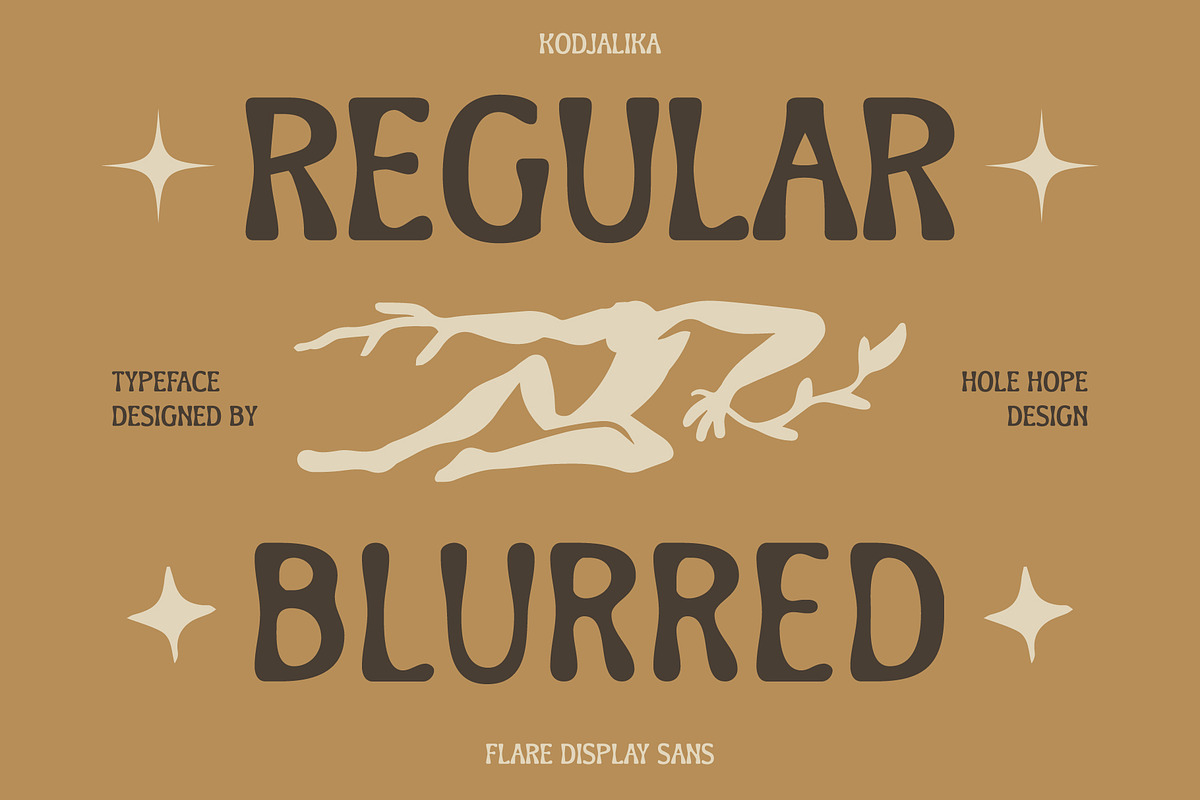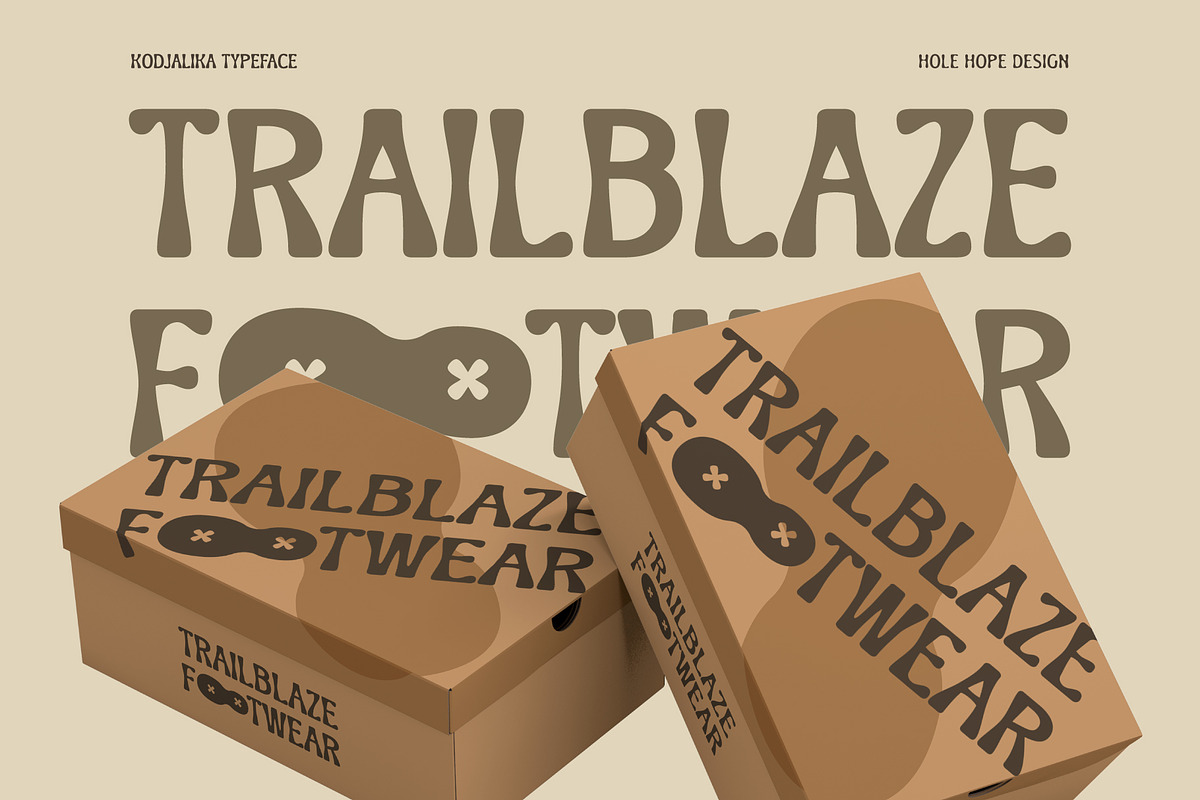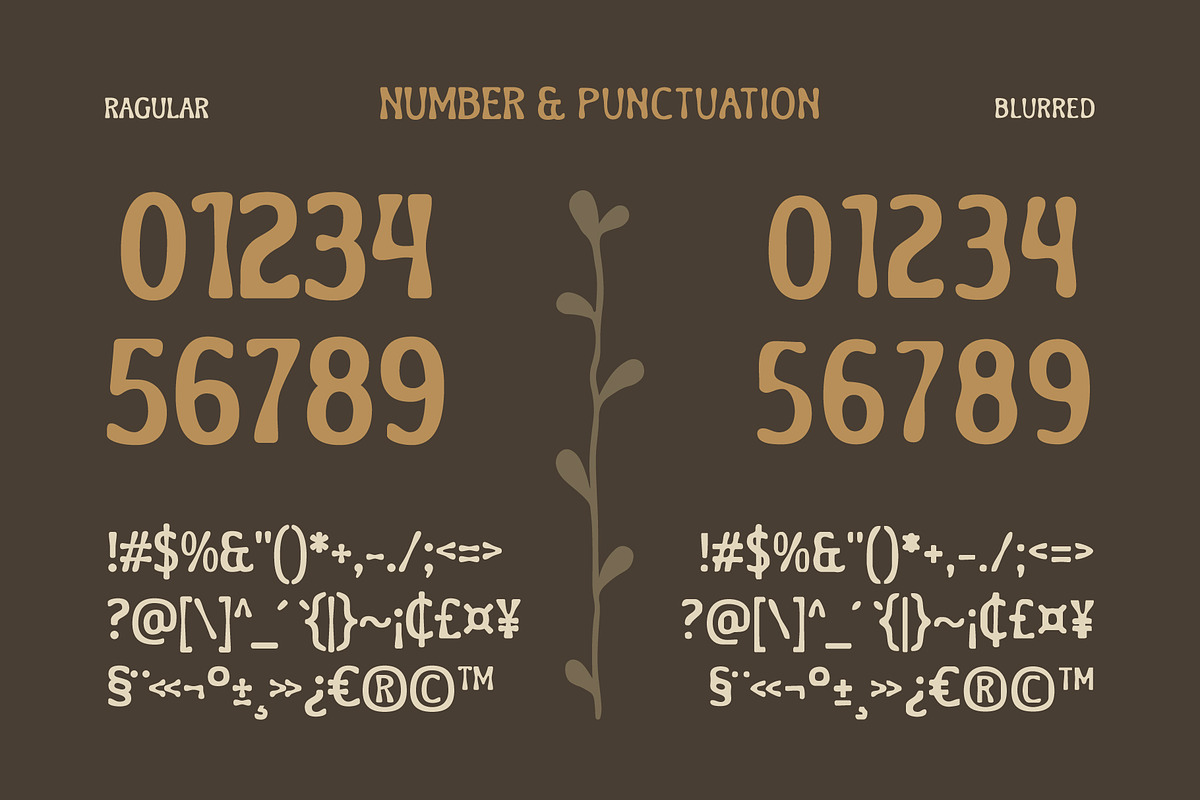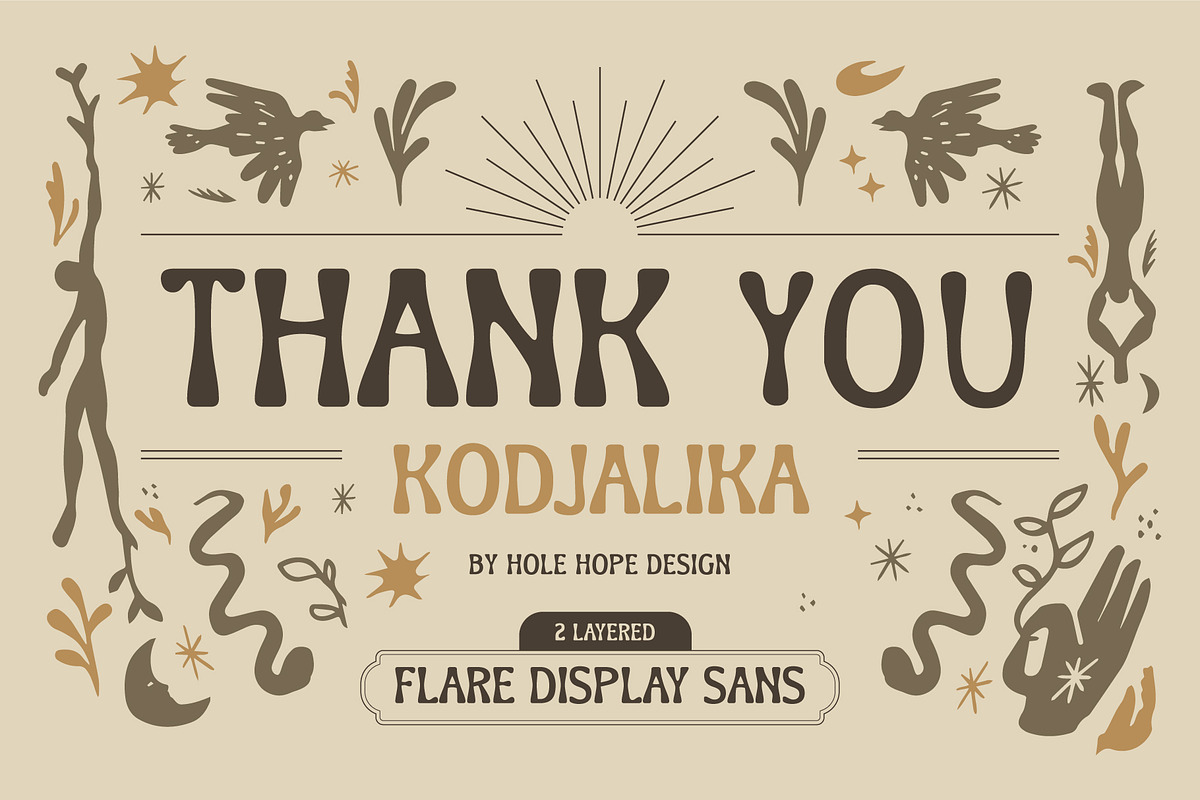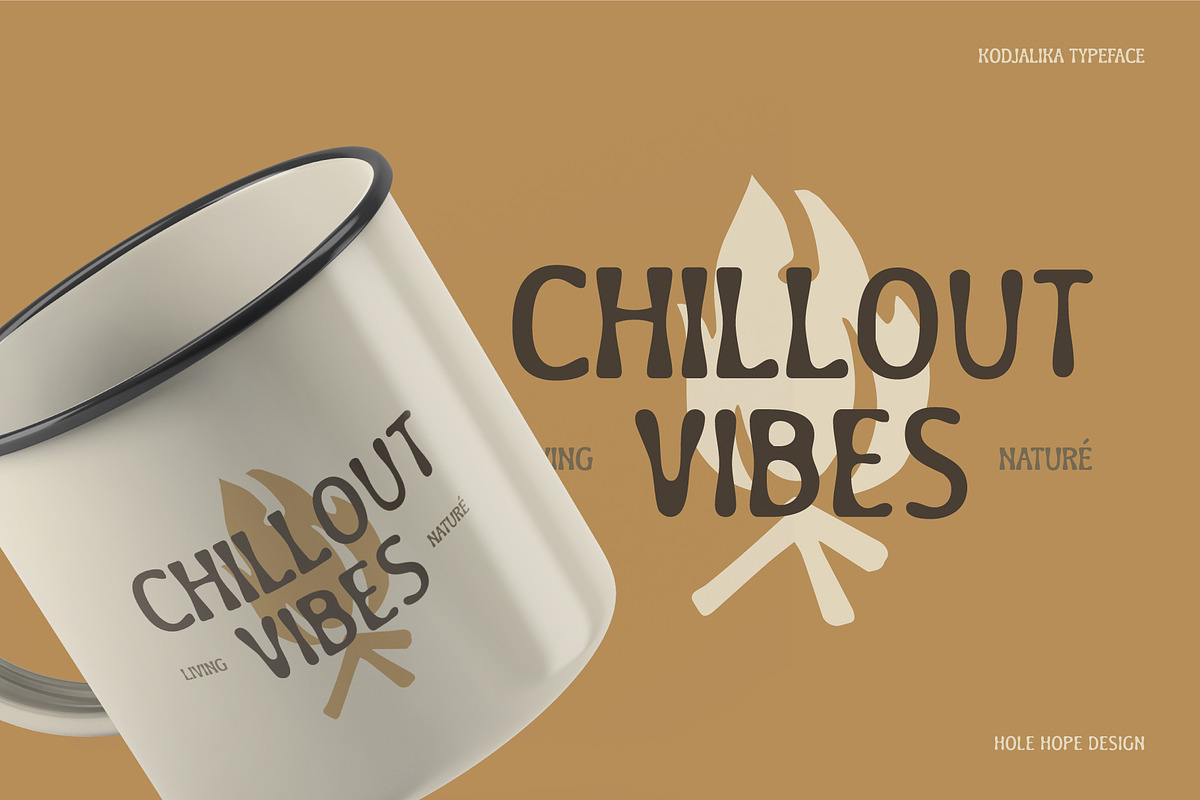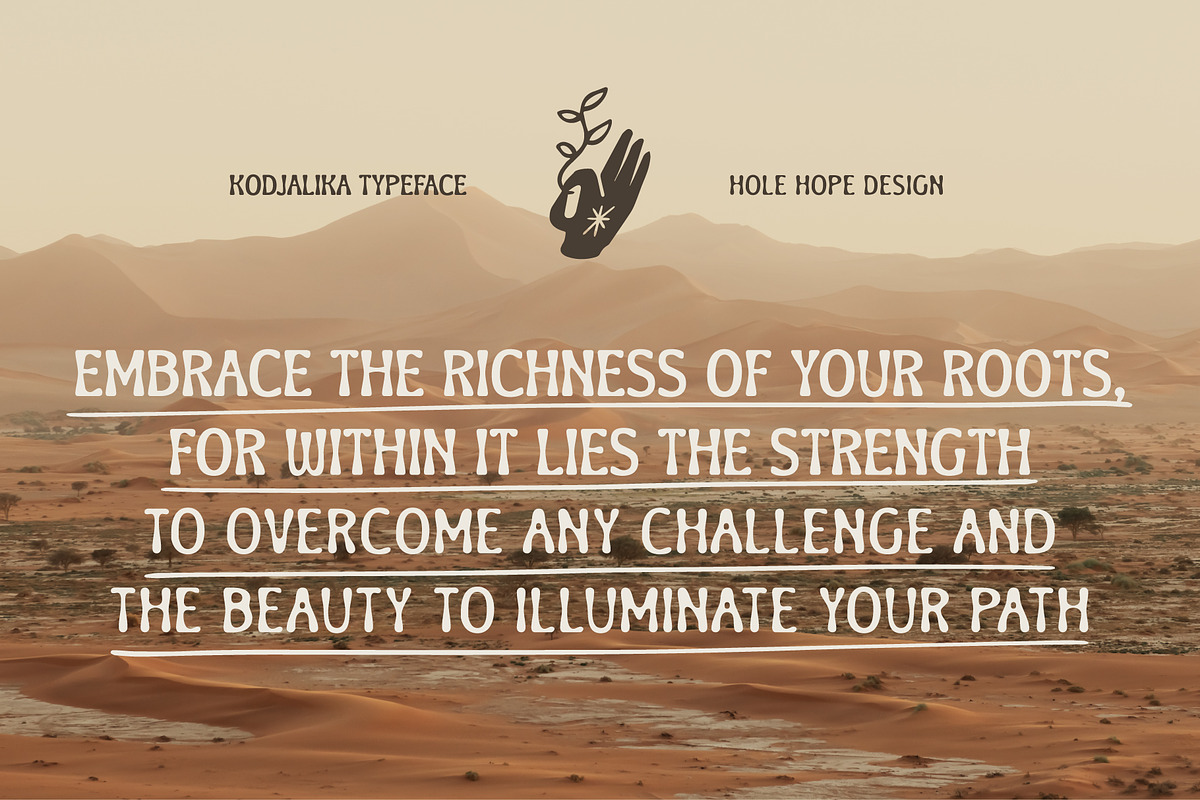
Kodjalika - Flare Display Sans Serif
Kodjalika - Flare Display Sans Serif Font
Introducing Kodjalika, a cutting-edge Flare Display Sans Serif Font that effortlessly combines modern aesthetics with Folk & Ethnic. This font is meticulously crafted to bring a sense of sophistication and versatility to your creative projects.
Kodjalika features: Character Set Punctuation & Numbers Multilingual Alternates